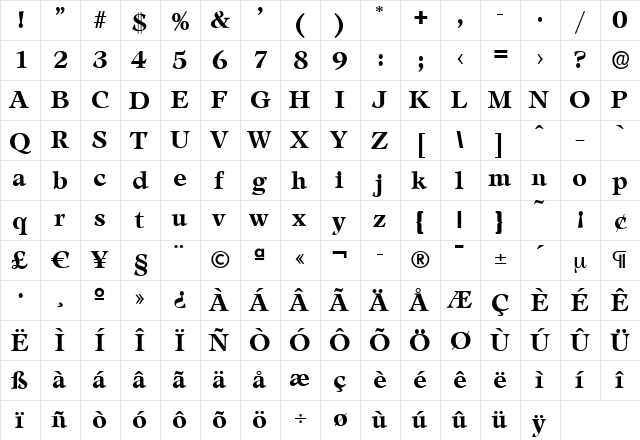
JakeBecker Bold
Design Context for JakeBecker Typeface
JakeBecker takes a measured approach to typography — its balanced proportions and neutral character make it a reliable workhorse for both digital and print work. Its bold stroke weight gives it real presence on the page.